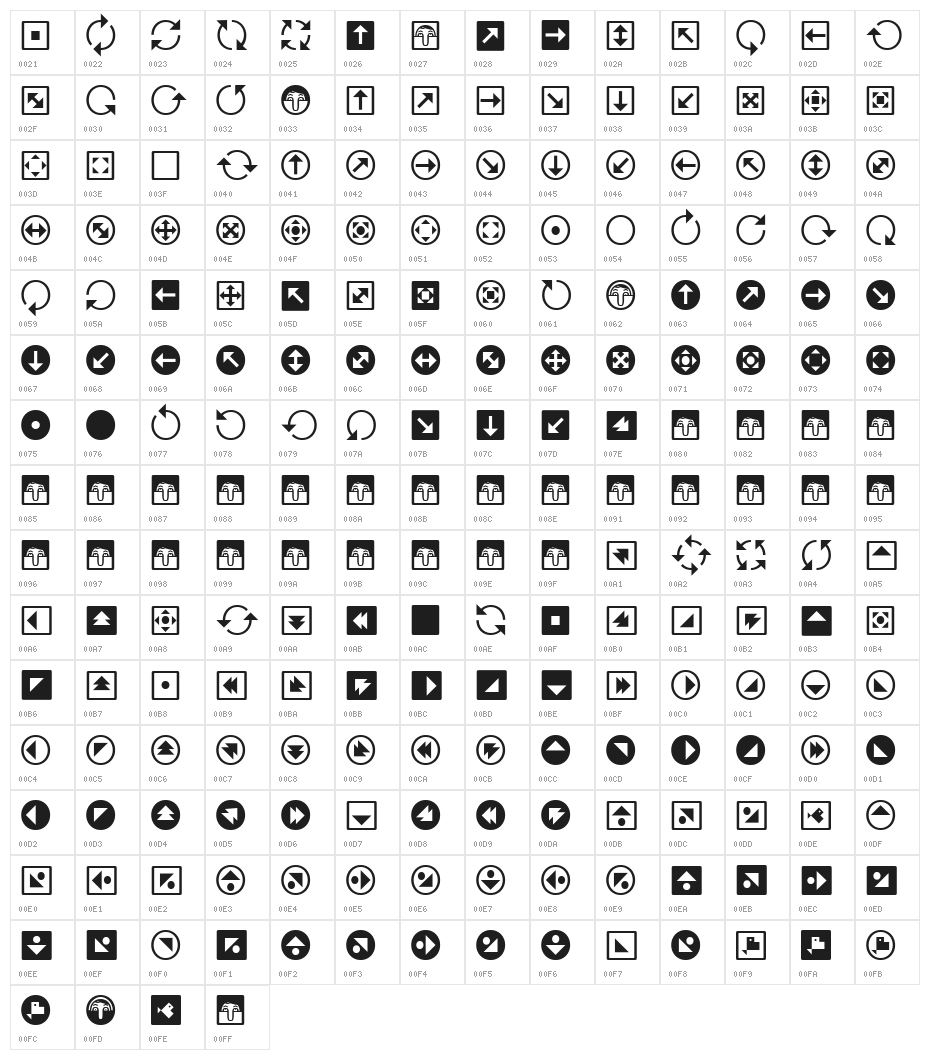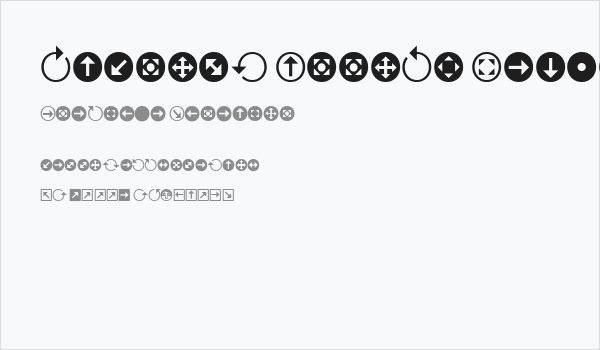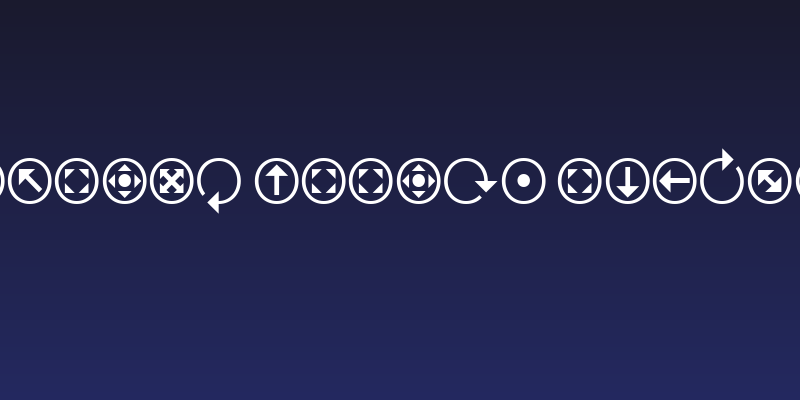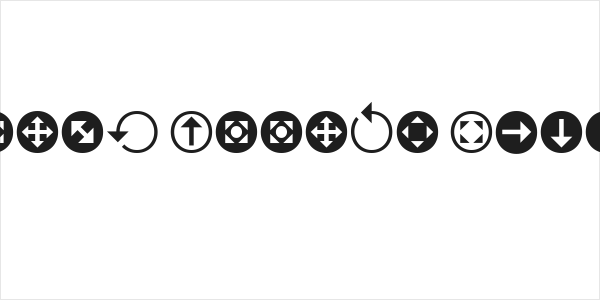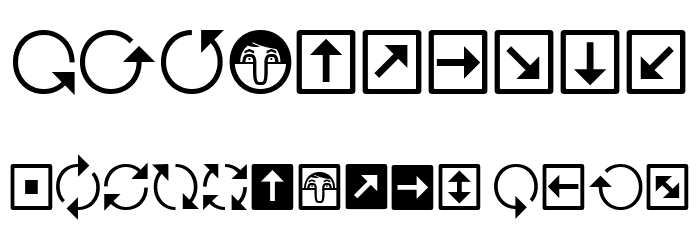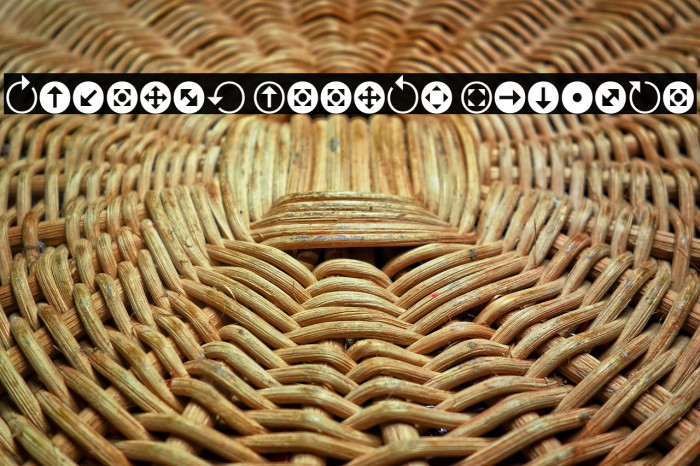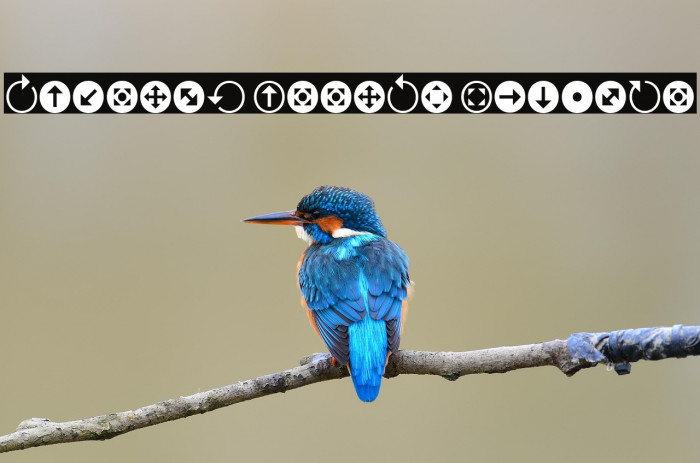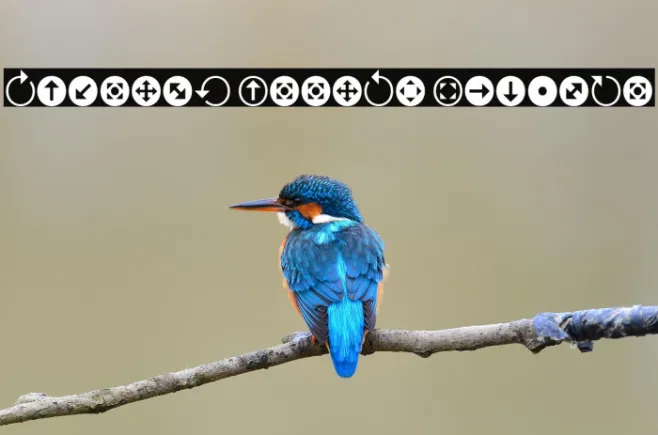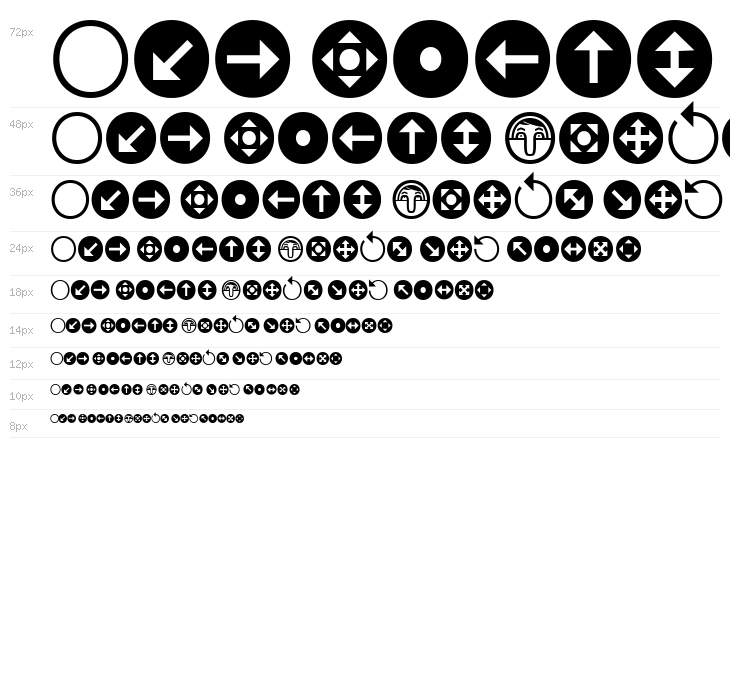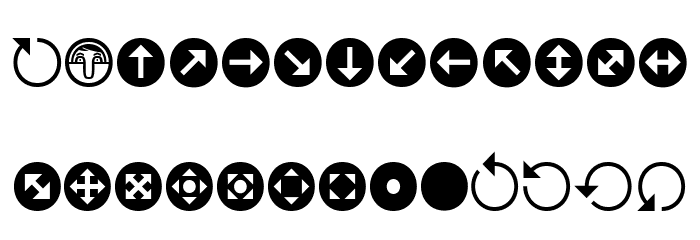
Uchrony Arrows Regular Font
Uchrony Arrows Regular Description
This is a decorative font composed entirely of arrow symbols and directional indicators. Each character is encased in a circular or square border, providing a bold and clear visual representation. The arrows point in various directions, including up, down, left, right, and diagonal, with some symbols featuring rotational arrows. The design is consistent, with thick lines and high contrast, making it easily distinguishable. This font is particularly useful for signage, navigation systems, or any project requiring clear directional cues. Its unique style is both functional and visually striking, offering a modern and practical aesthetic.
| Use Case | Signage, Navigation, Instructional Graphics |
| Proposed Projects | Ideal for signage, navigation systems, instructional graphics, and user interface design. |